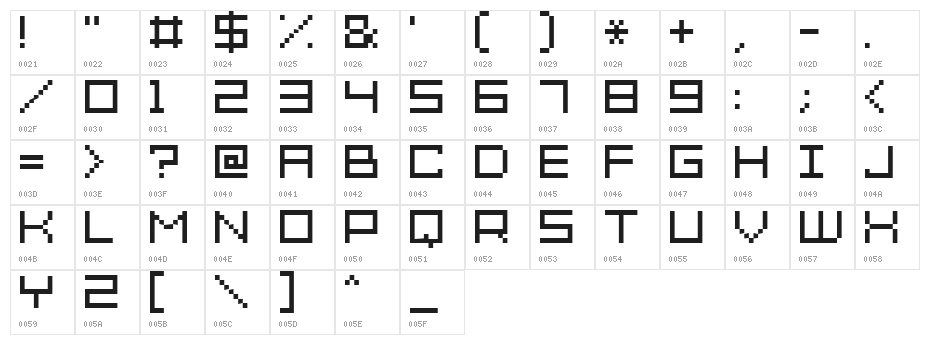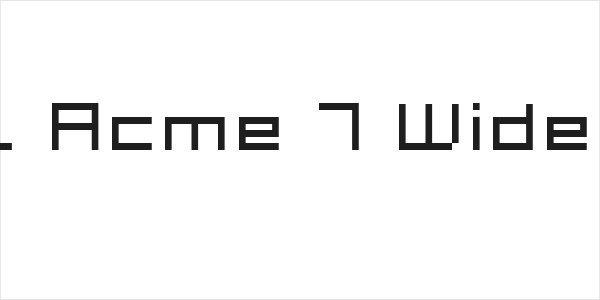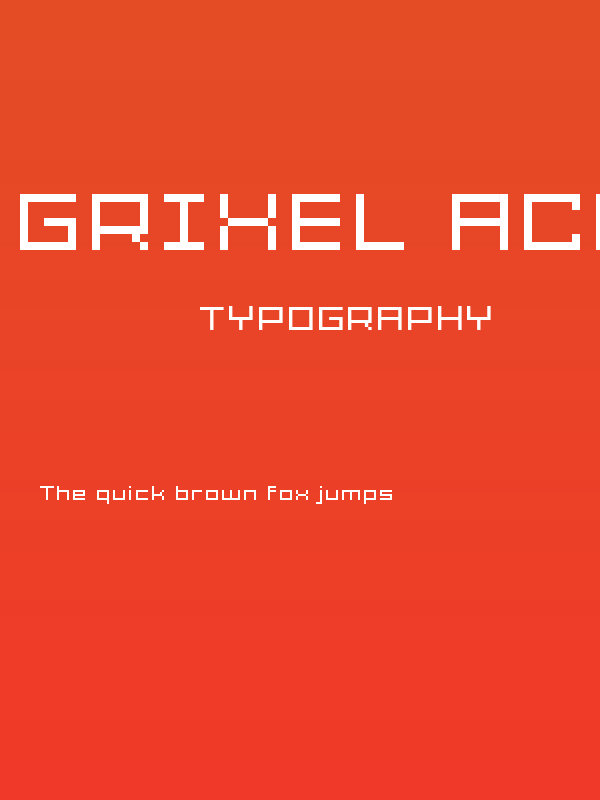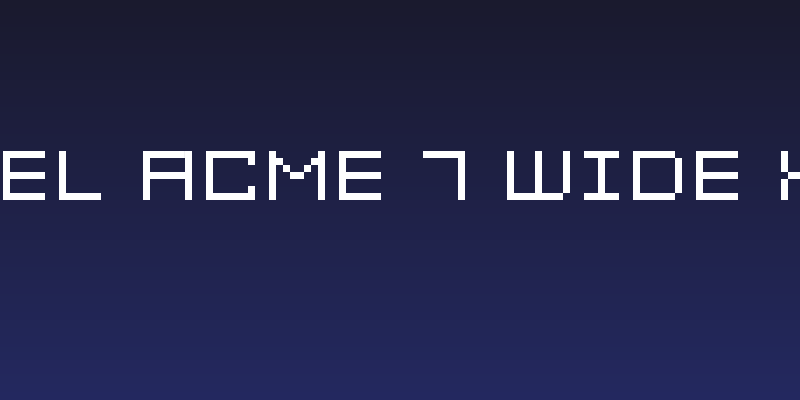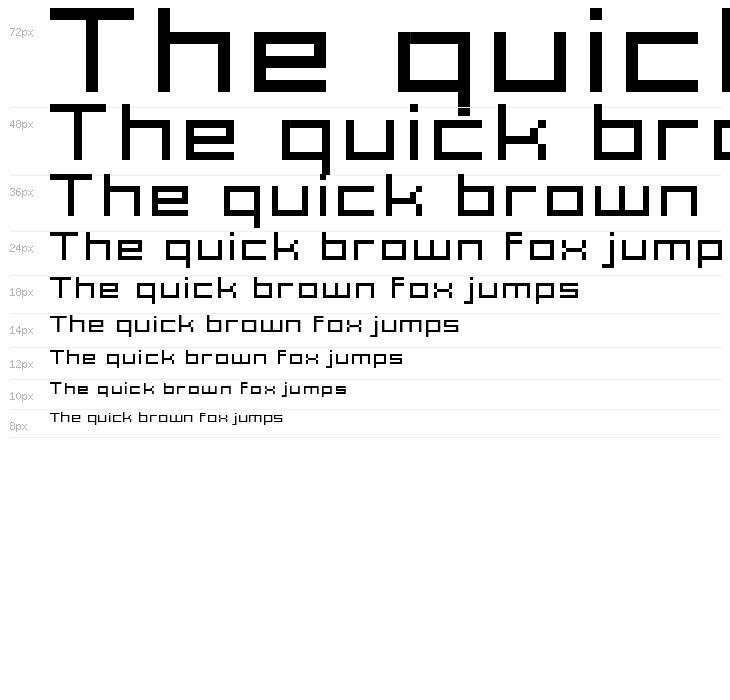
Grixel Acme 7 Wide Xtnd Font
Grixel Acme 7 Wide Xtnd Description
This font features a pixelated, grid-like design that evokes a retro, digital aesthetic reminiscent of early computer graphics and video games. The characters are uniformly structured with a blocky appearance, providing a sense of consistency and order. The uppercase and lowercase letters maintain a similar width, contributing to a cohesive look. The numerals and special characters are crafted with the same pixelated style, ensuring uniformity across all glyphs. This font's distinct style makes it ideal for projects that aim to capture a vintage digital or tech-inspired theme.
| Use Case | Logos, Headlines, Digital Art |
| Proposed Projects | Ideal for retro video game designs, tech-themed posters, digital art projects, and any creative work that seeks a vintage digital aesthetic. |